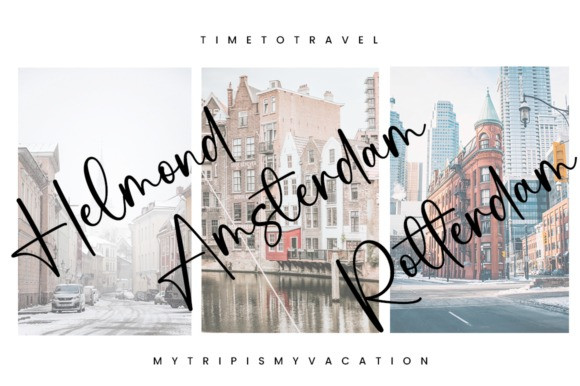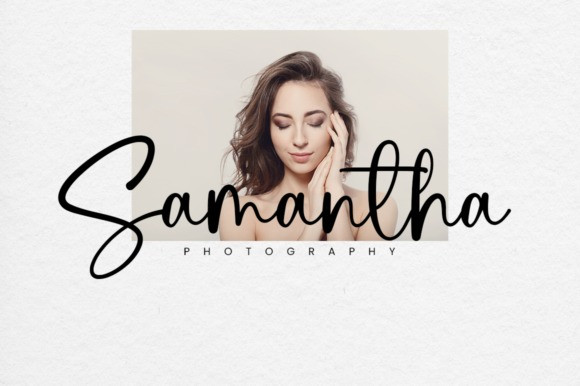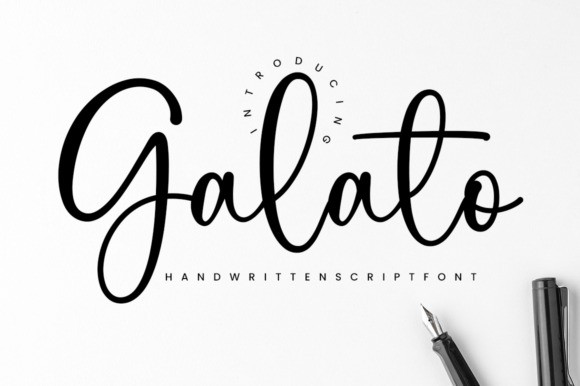
Galato Font
Galato Font is a lovely and delicate script font that exudes elegance and class. This font was particularly crafted for those who need a beautiful and refreshing look to their designs.